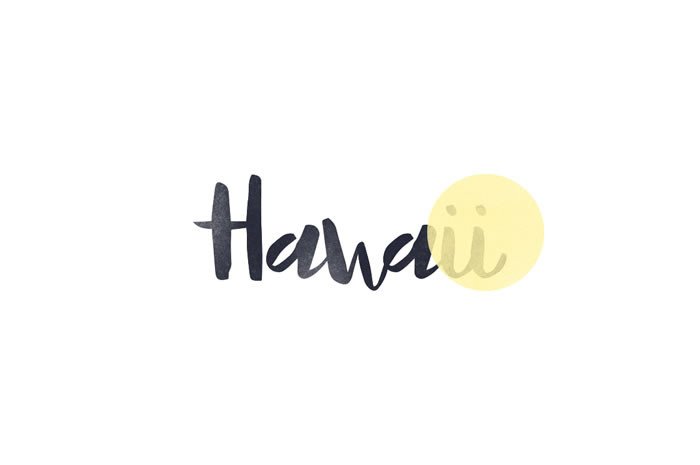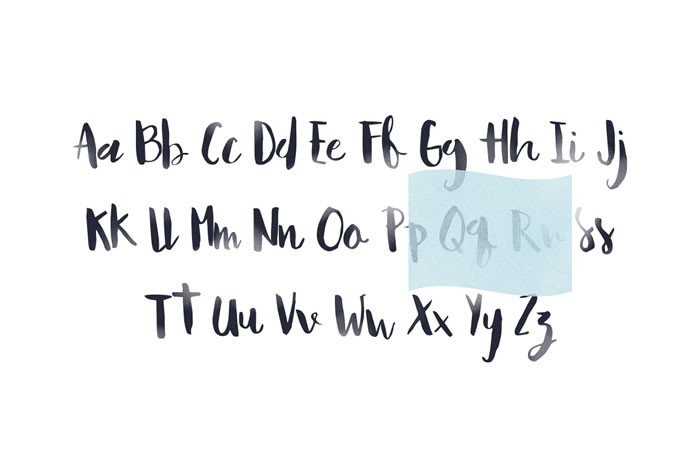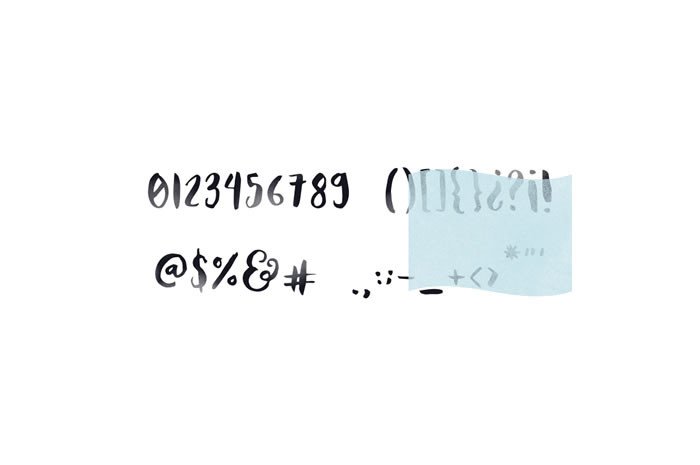
Hawaii Font
About Hawaii Font
This beautiful typeface is inspired by the sun and is perfect to use for logo’s, invitations, posters, quotes, letterheads, birthdays and much more! Just imagine the wild things you can create with this font.